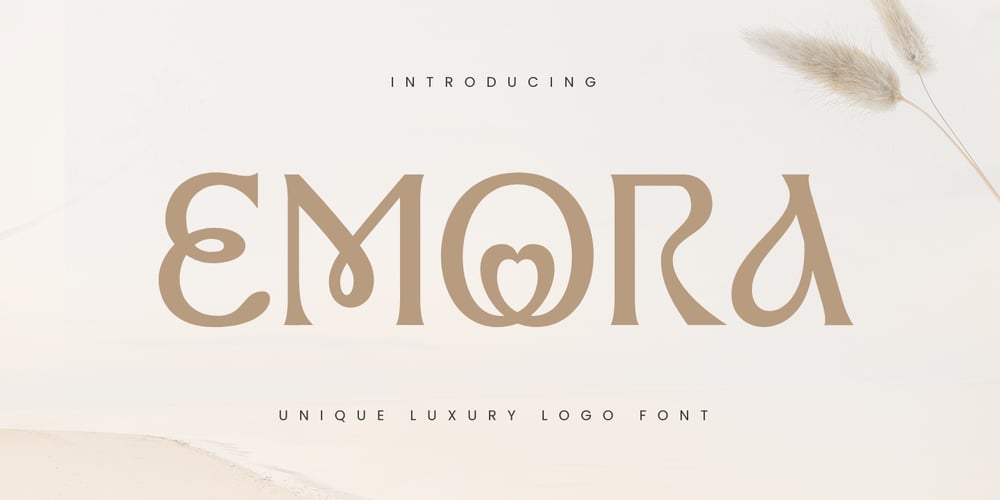
Emora
Emora font
Emora Font Family was designed by Zamroni Hamzah and published by Sensatype Studio. Emora contains 1 styles and family package options. Introducing Emora, the epitome of luxury and cinematic elegance in a serif font. Perfectly crafted for sophisticated and high-end designs, Emora brings a touch of class and refinement to any project.Emora Font Features: Luxury Design: A luxurious serif style ideal for upscale and sophisticated projects. Cinematic Appeal: Perfect for film titles, movie posters, and dramatic visual content. Versatile Usage: Suitable for branding, editorial layouts, elegant invitations, and more. Multiple Formats: Available in formats for seamless integration. Inspirational Previews: Includes sample designs to inspire your creative projects. Elevate your designs with Emora, the luxury serif font that exudes sophistication and style. Whether for high-end branding, cinematic projects, or elegant typography, Emora adds a timeless and refined touch to your work. Make a statement with Emora and let your designs shine with unparalleled elegance.